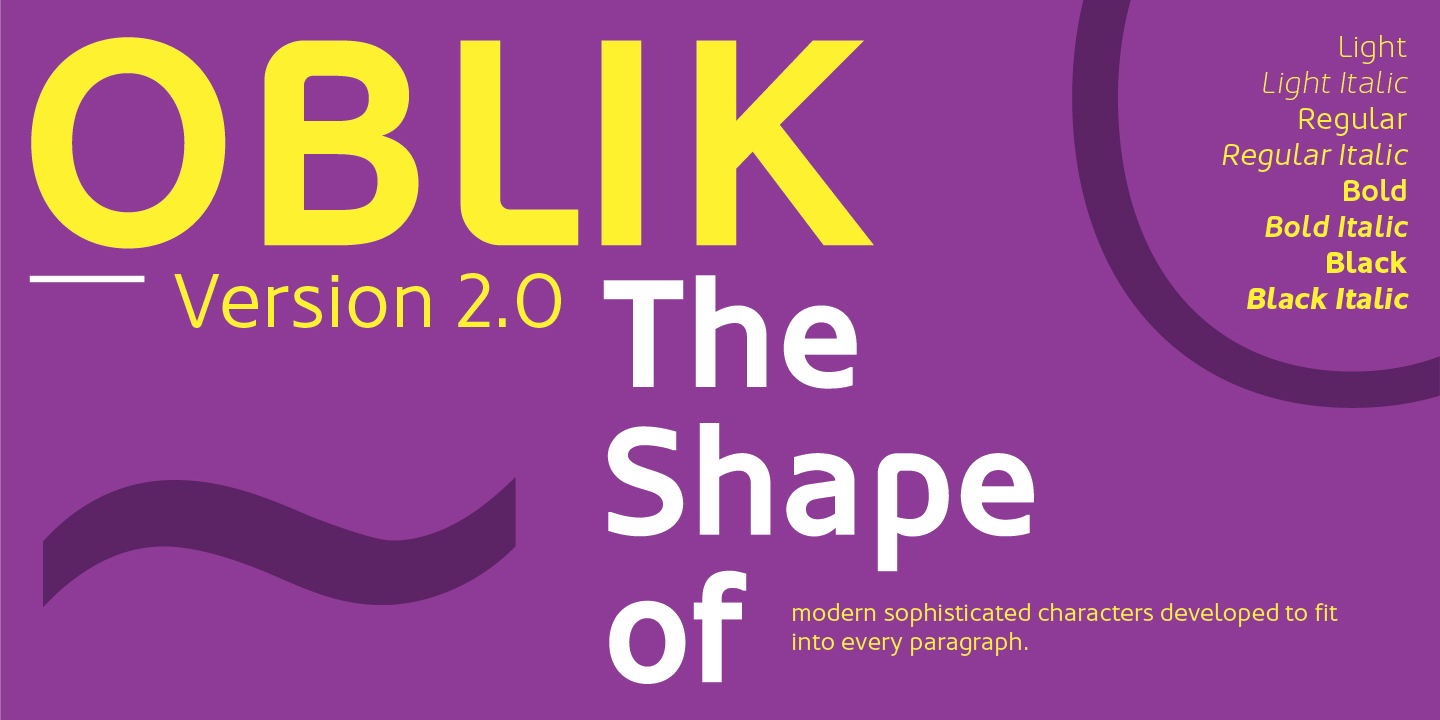
Oblik Font is a sleek and contemporary sans-serif typeface characterized by its clean lines and subtle curves. Perfect for branding, editorial design, web interfaces, and advertising, this font brings a modern, elegant touch to any project.
What makes Oblik Font Free Download so exciting is its versatility and minimalist style, allowing designers to create sophisticated and readable typography that fits a variety of applications—from corporate identities to creative campaigns.
The Oblik Font family typically includes multiple weights, ranging from Light to Bold, along with italic styles, providing flexibility for dynamic and balanced typographic layouts.
Whether you’re designing a sleek website, professional presentations, or stylish marketing materials, Oblik Font Free Download offers clarity and contemporary flair that elevates your design to the next level.